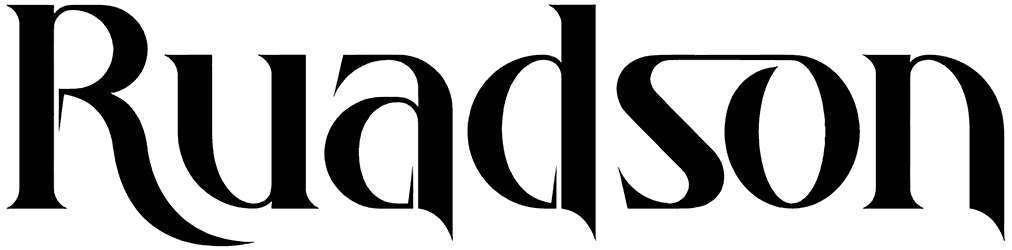
Ruadson Font
Let us offer you this unique serif font that could make your design ravishing. The classic and special visual of this elegant font will help you to adorn your fashion event poster and differentiate it from others. All characters of the Ruadson font are available. So, test it for your intended text and enjoy it.